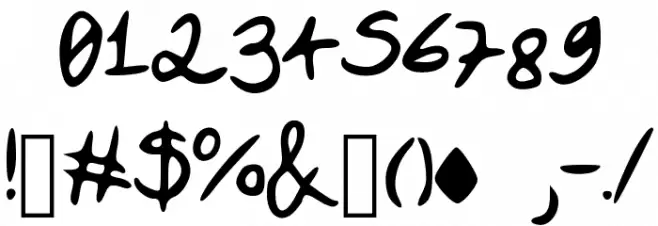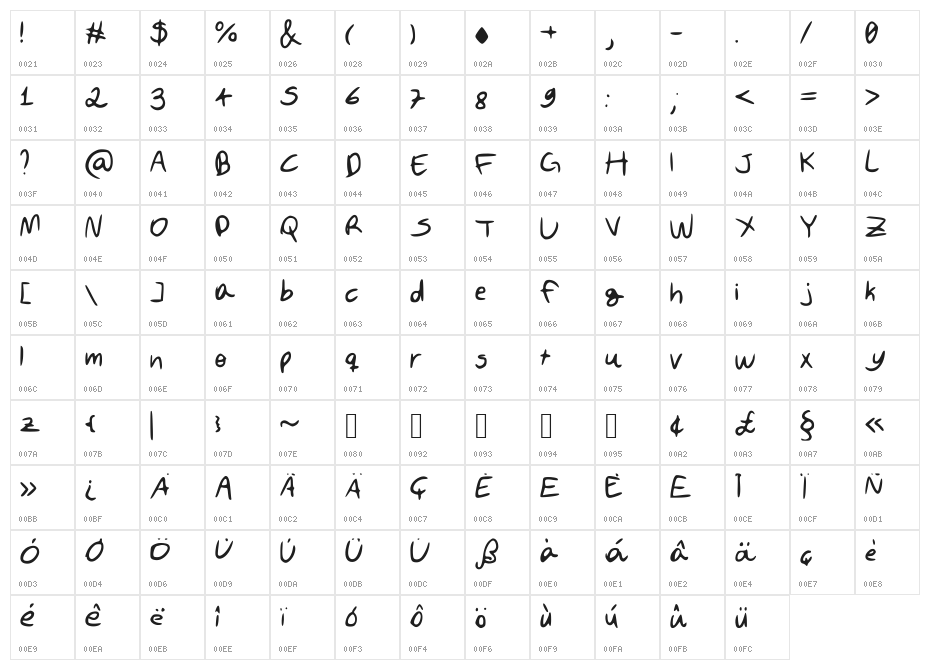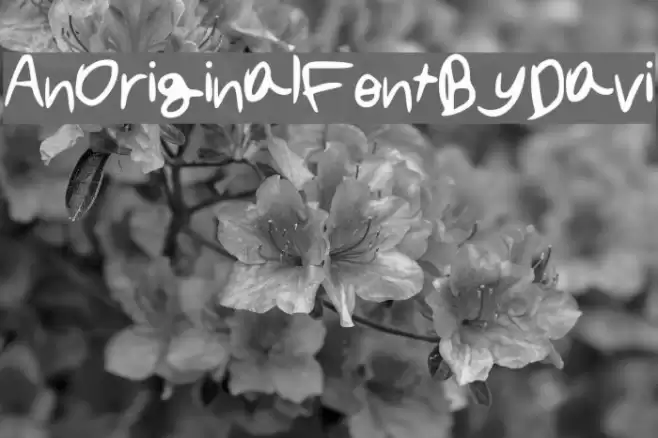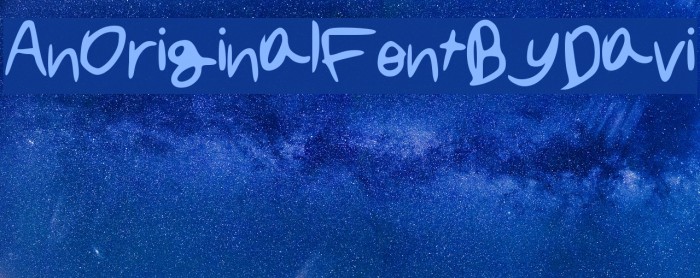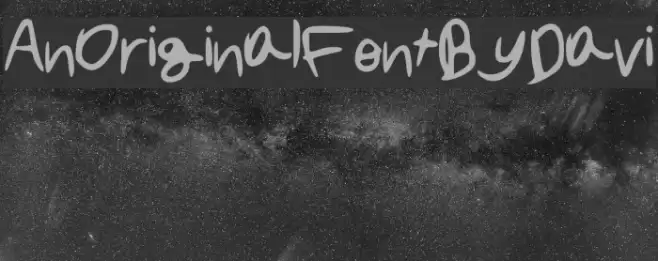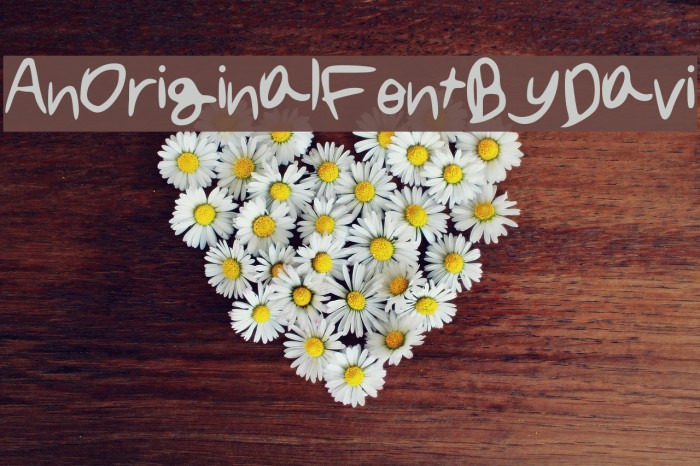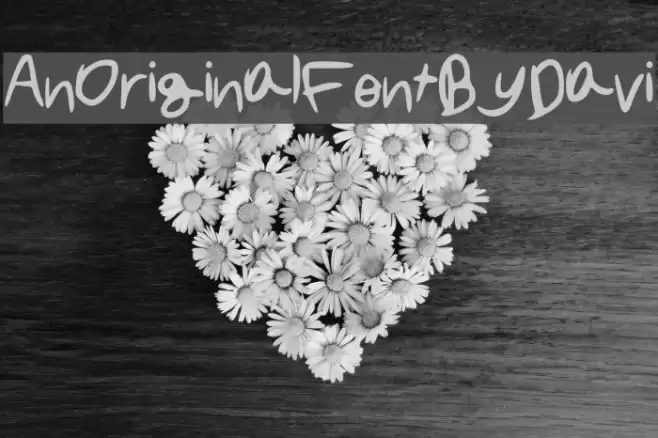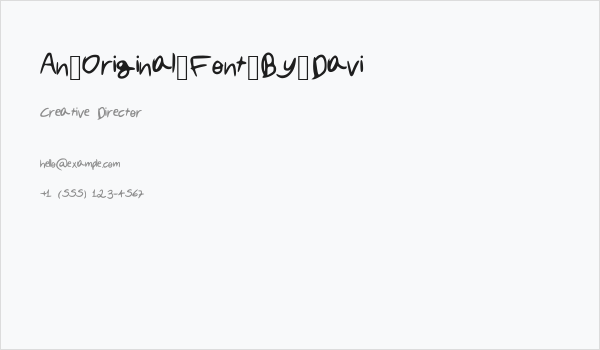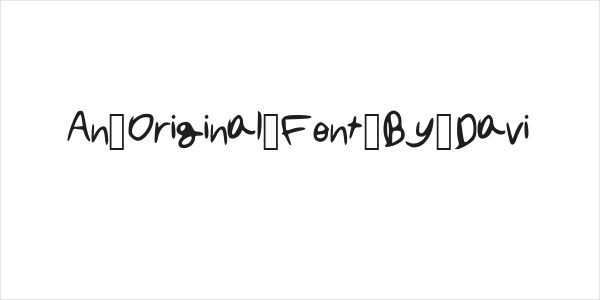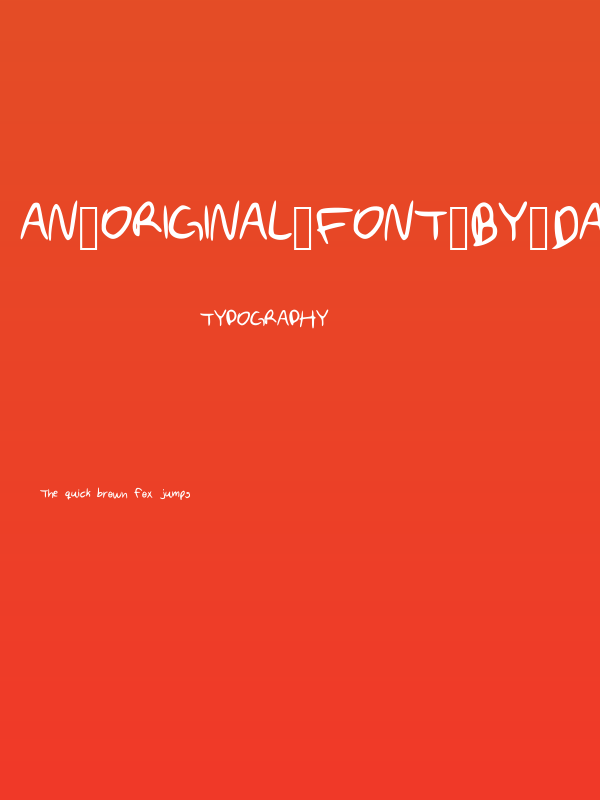
An_Original_Font_By_Davi Font
An_Original_Font_By_Davi Description
This font exudes a playful and casual handwritten style, characterized by its fluid and dynamic strokes. The letters are slightly slanted, giving a sense of movement and energy. The uppercase and lowercase letters maintain a consistent style, with rounded edges and a friendly appearance. The numerals and special characters follow the same aesthetic, ensuring a cohesive look across all text. This font is perfect for projects that require a personal touch or a relaxed, informal vibe.
| Use Case | Headlines, Informal text, Personal projects |
| Proposed Projects | Ideal for greeting cards, children's books, personal blogs, and informal branding. |